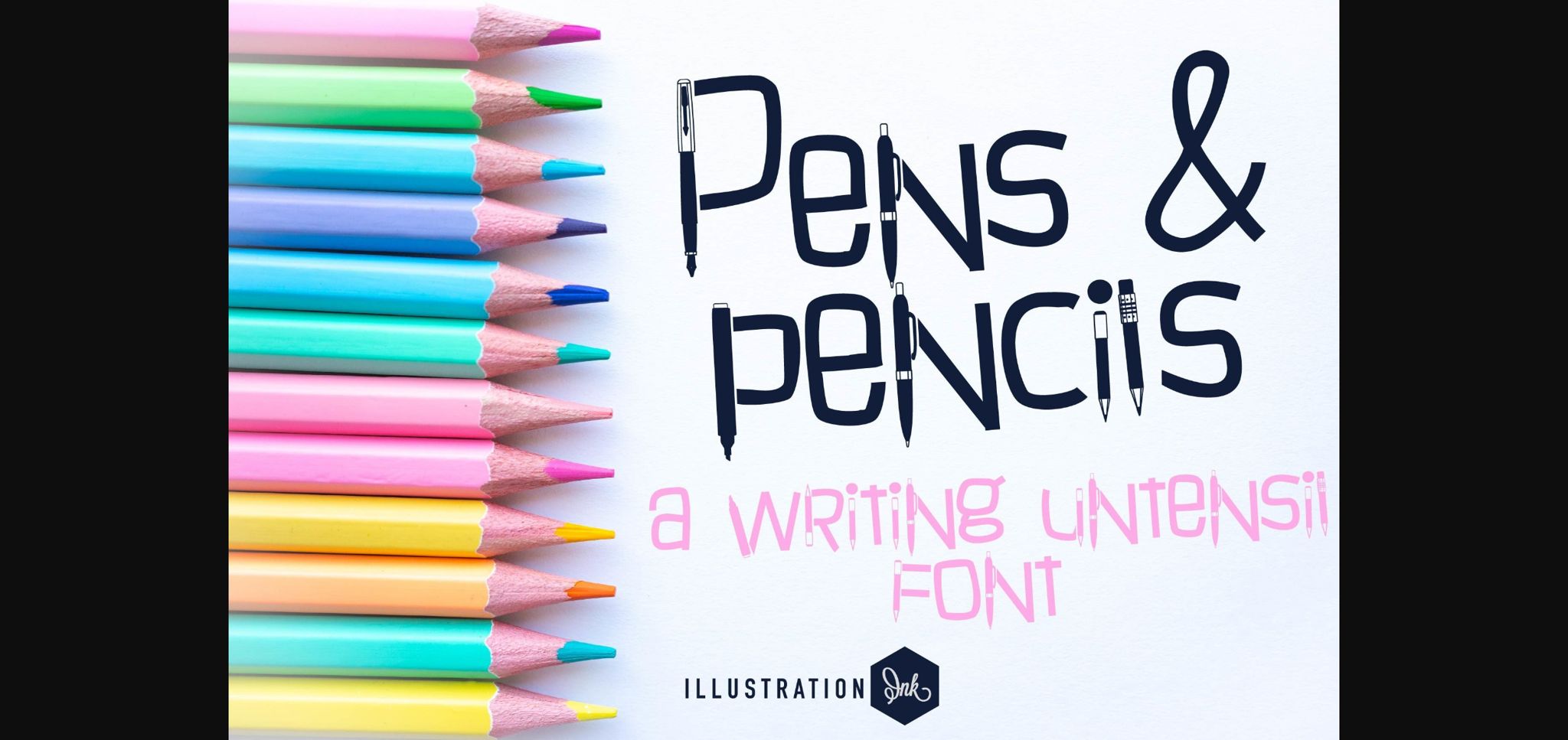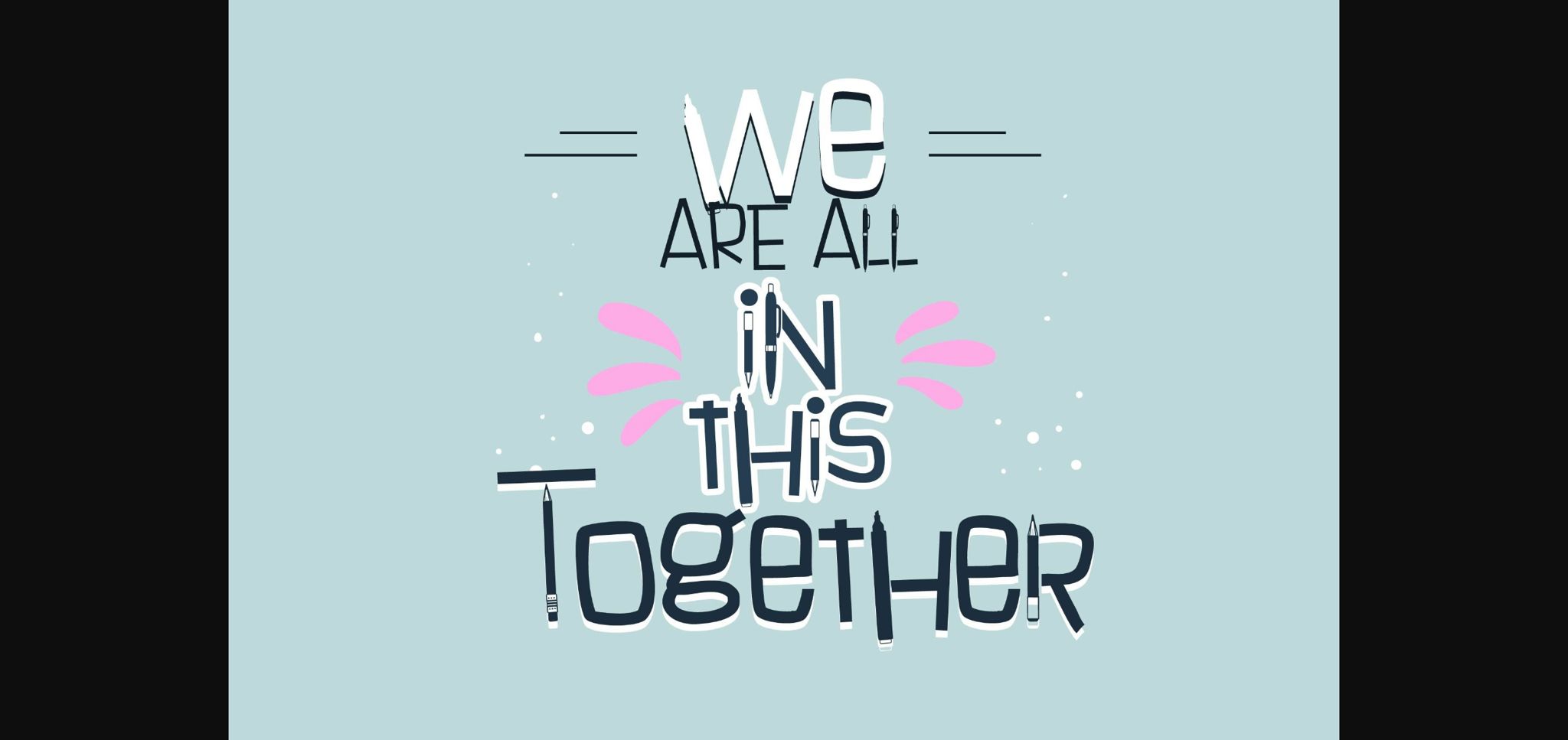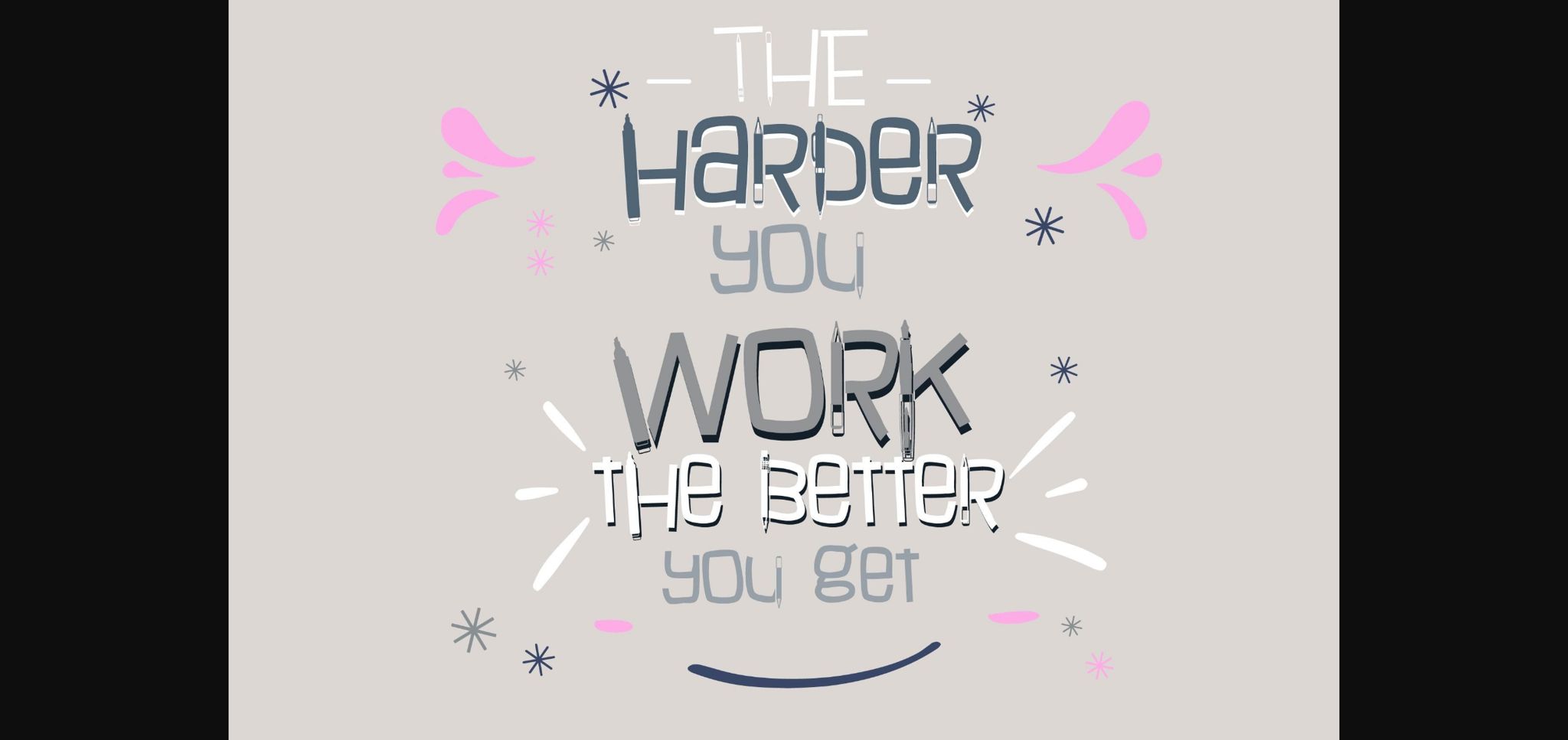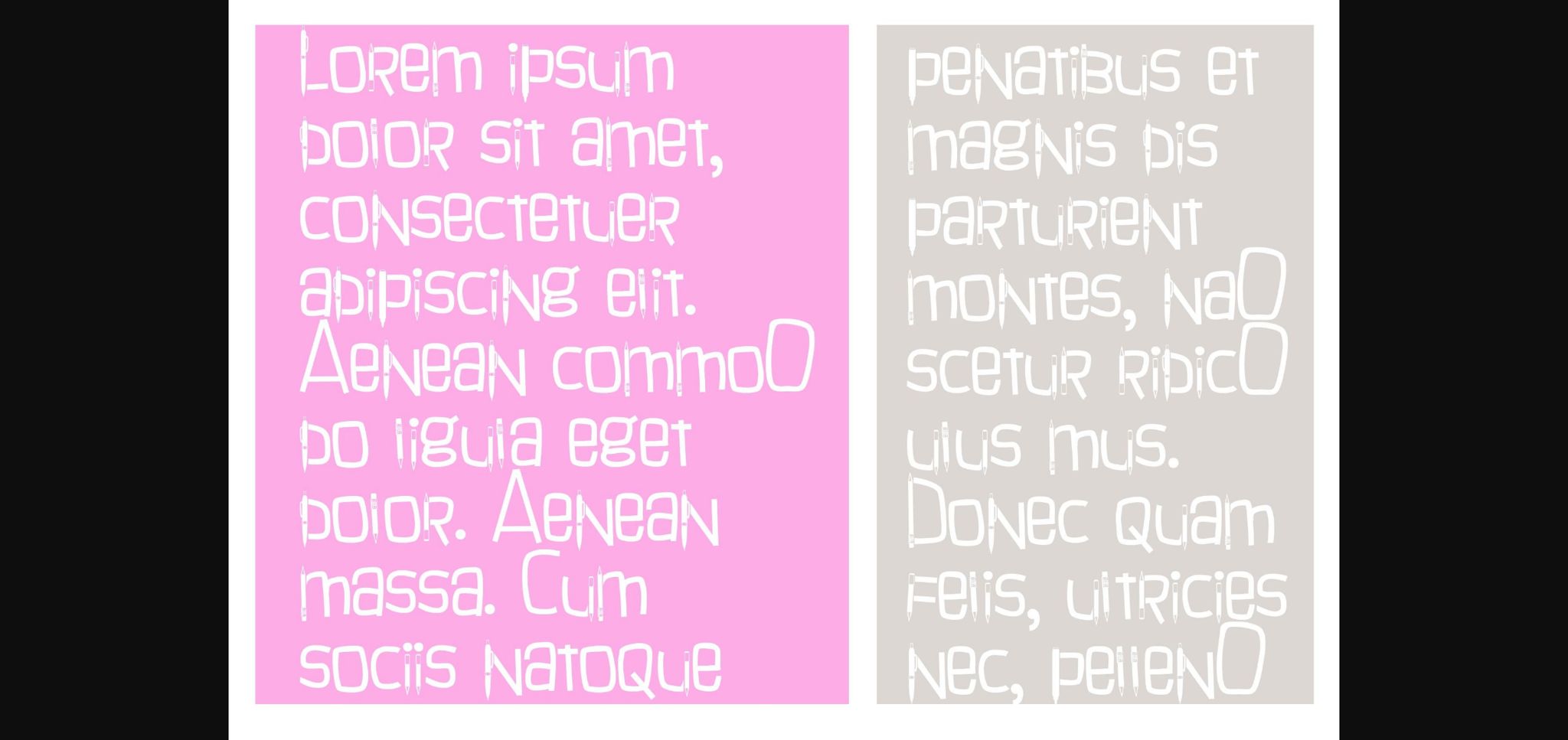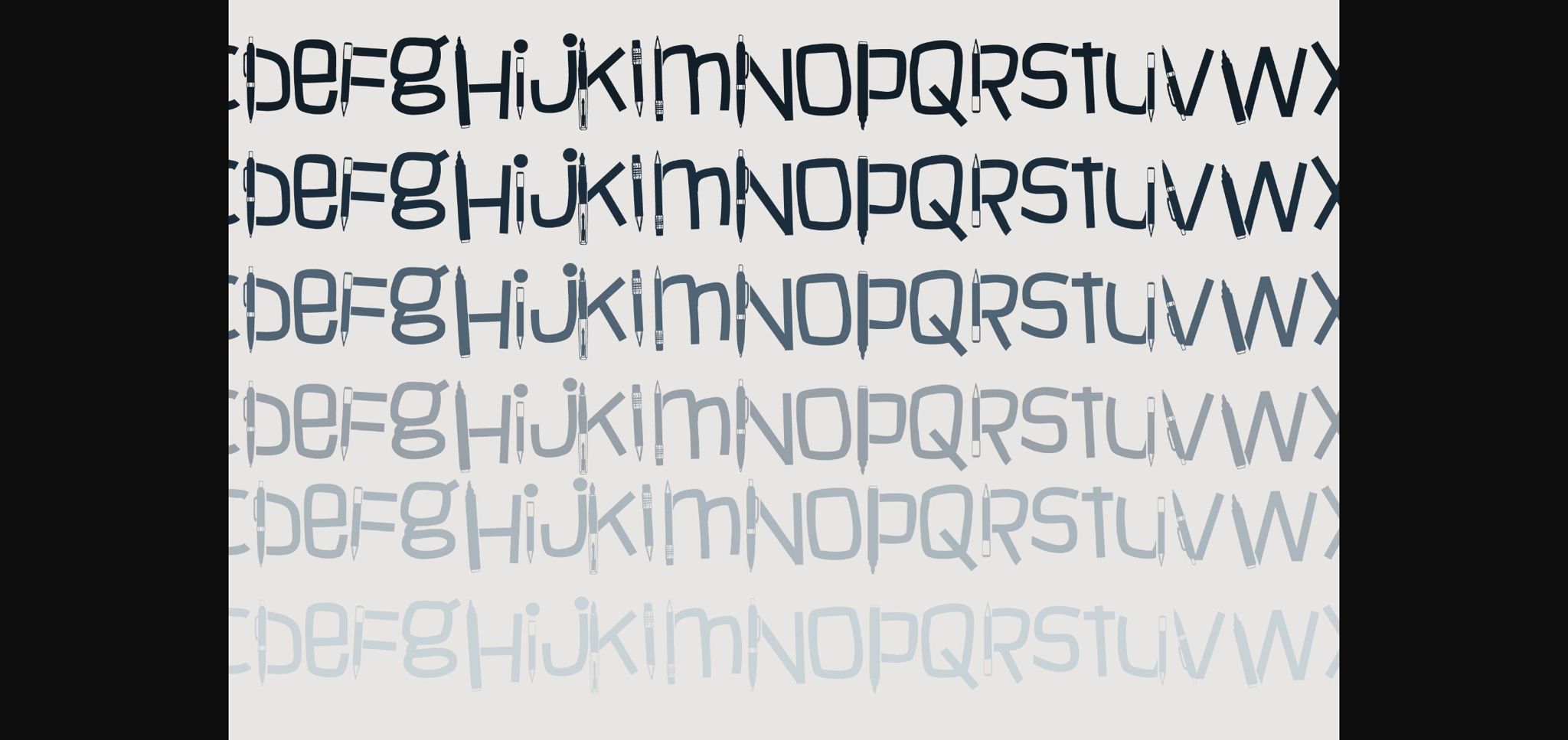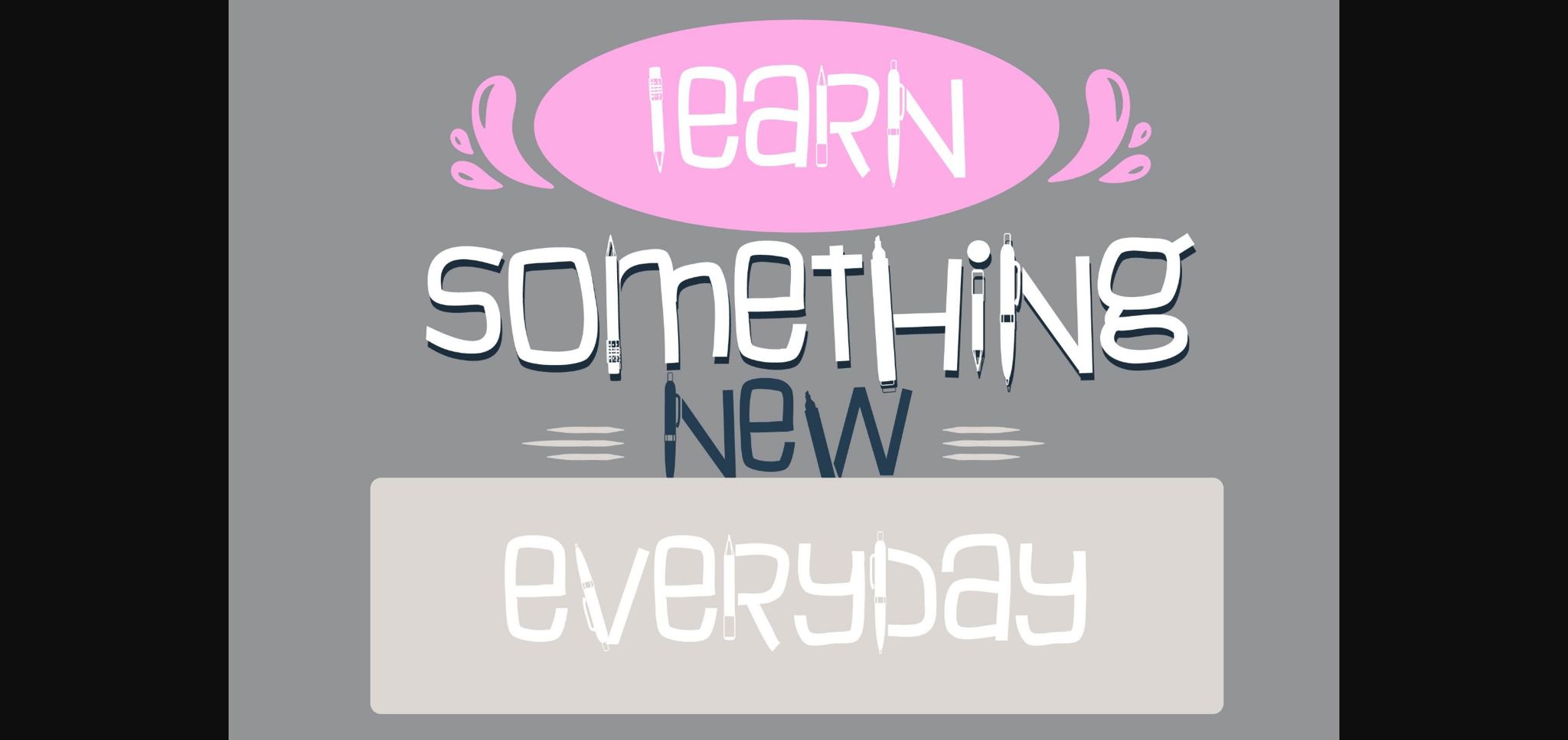
Pens and Pencils Font
About Pens and Pencils Font
Pens and Pencils is a blocky sans serif font featuring fun pens and pencils throughout the letters. It embodies playfulness and authenticity and is the perfect choice for any children activity or school project.